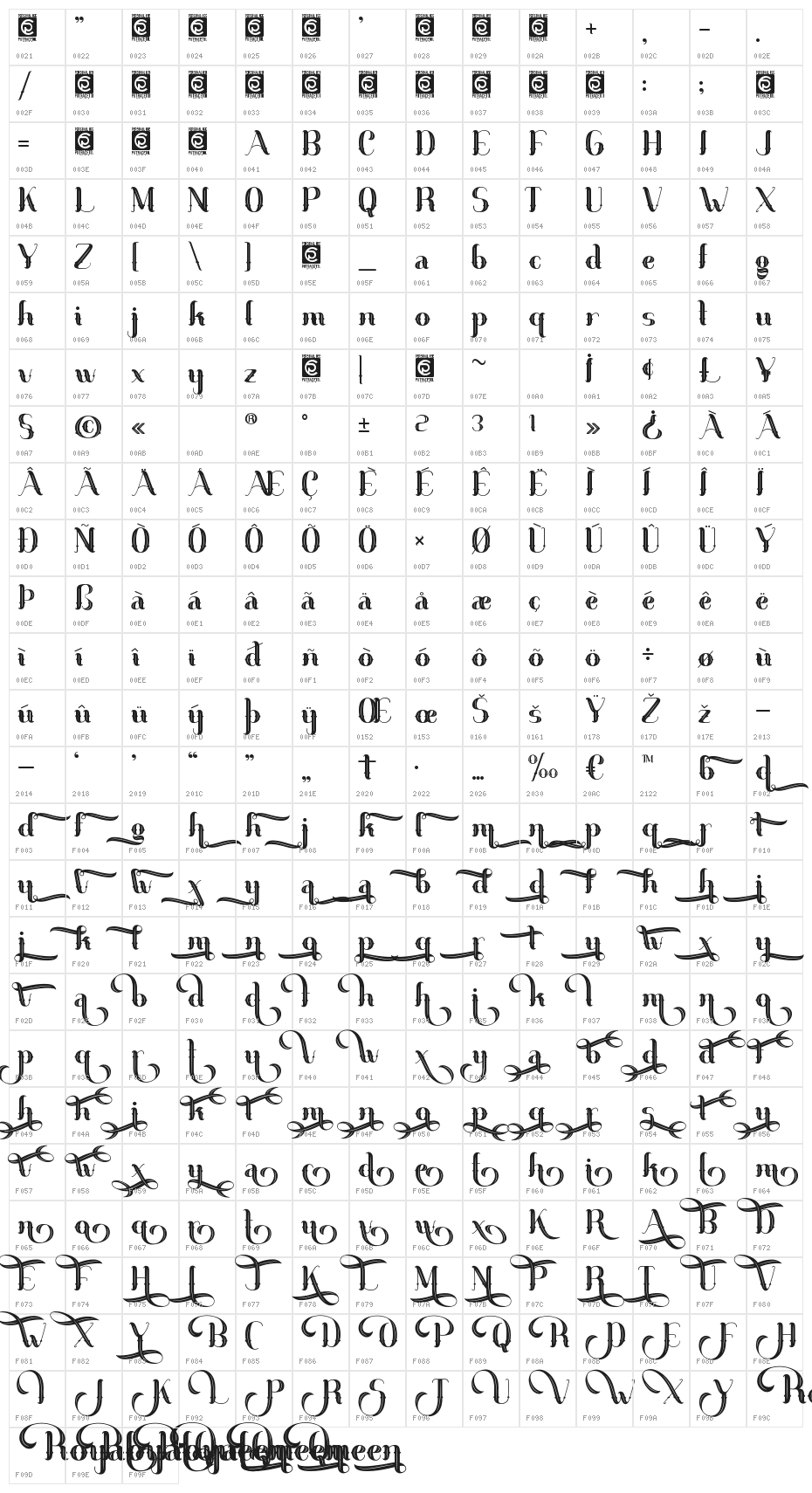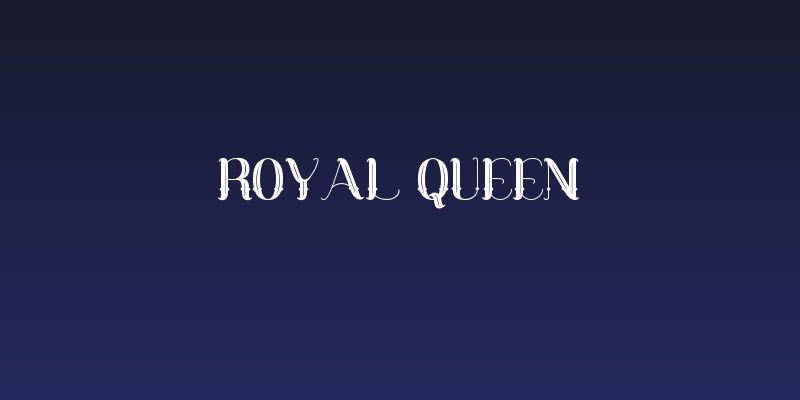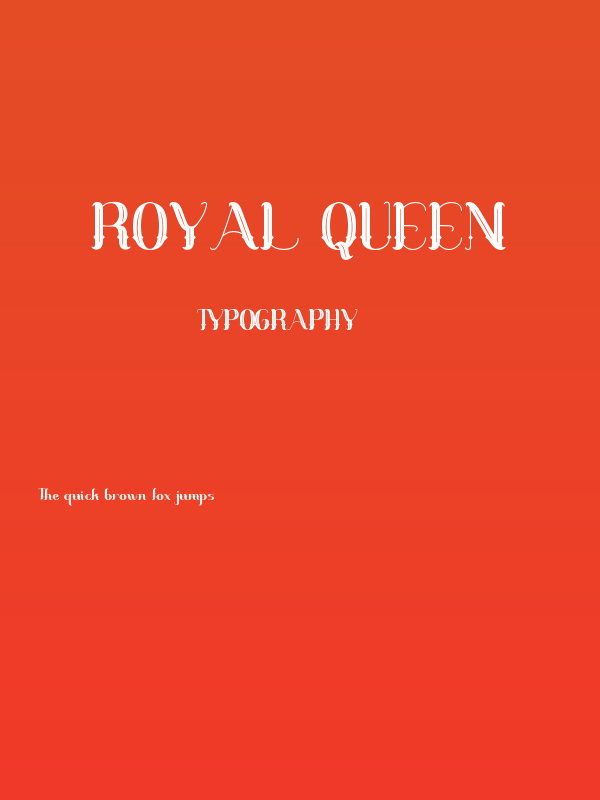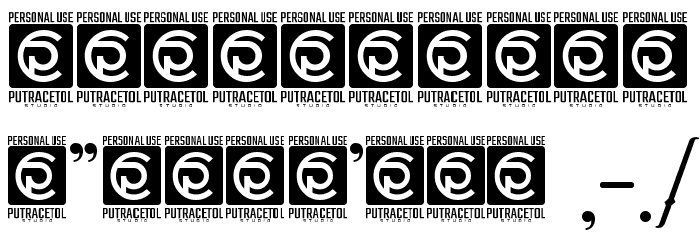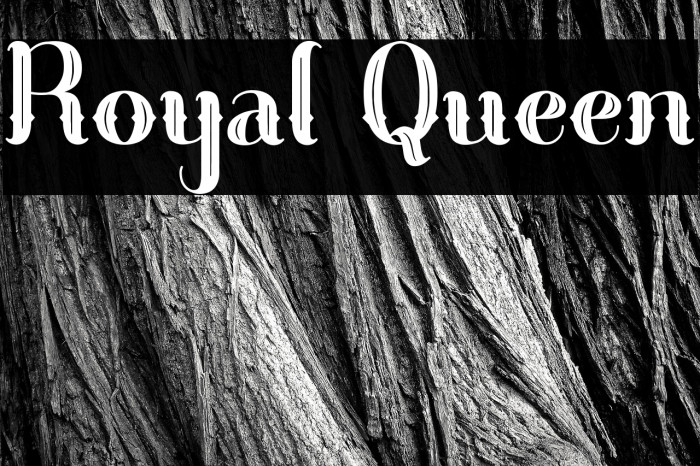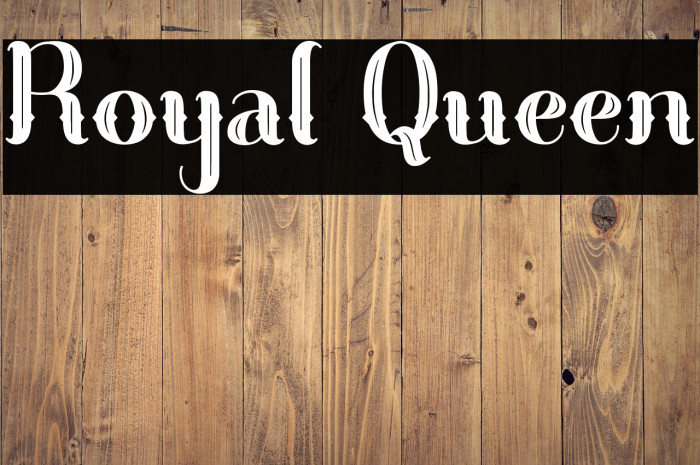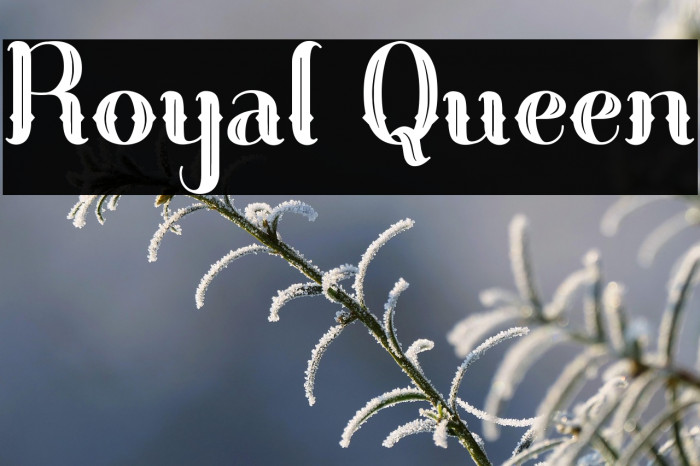
Royal Queen Font
Royal Queen Description
This font features a unique blend of elegance and boldness, characterized by its decorative, serif style. The uppercase letters exhibit a regal flair with intricate curves and sharp serifs, while the lowercase letters maintain a consistent style with a slightly more subdued presence. The numbers and special characters are designed to complement the overall aesthetic, making them suitable for sophisticated design projects. The font's distinct style is reminiscent of vintage calligraphy, offering a touch of classic charm with a modern twist.
| Proposed Projects | Perfect for wedding invitations, luxury branding, editorial design, and high-end product packaging. |